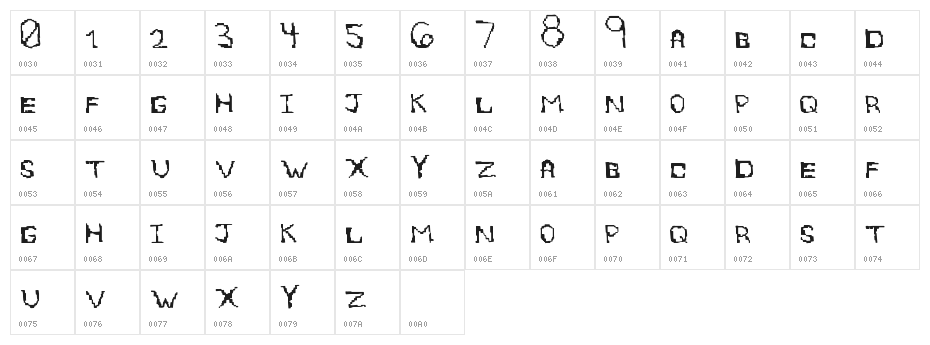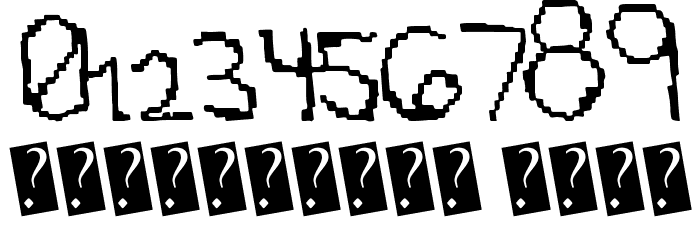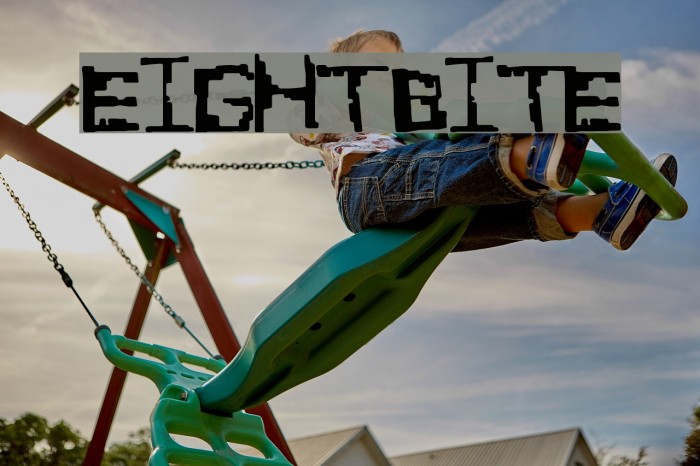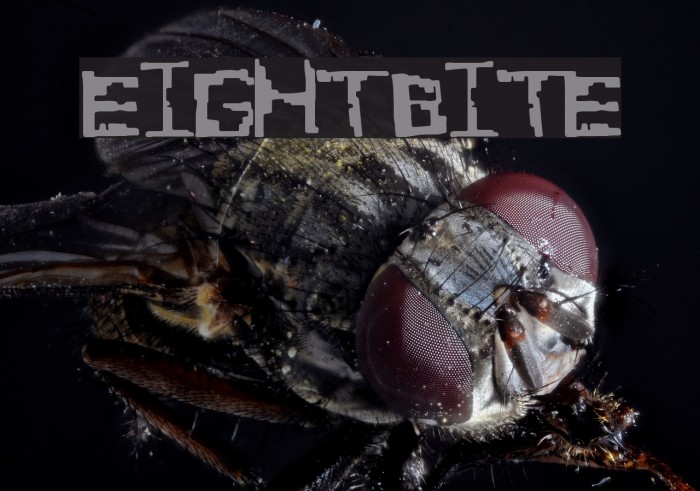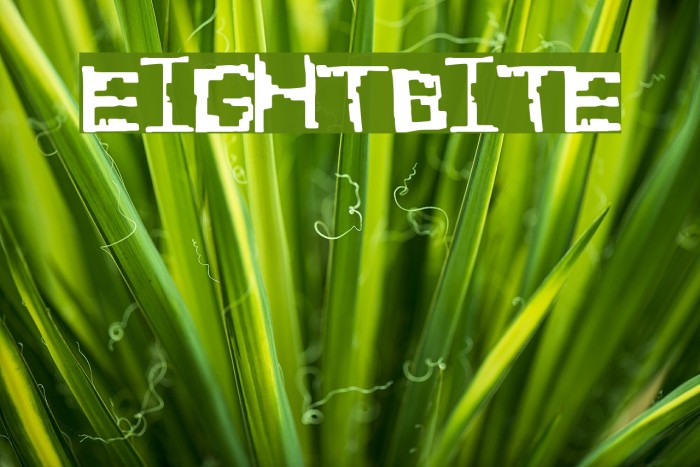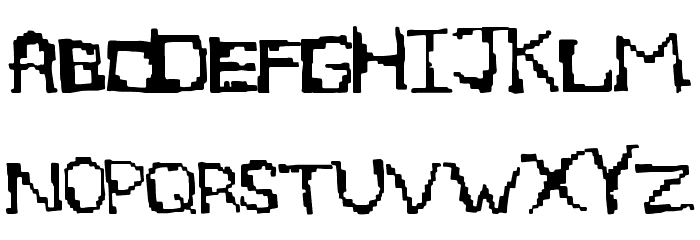
EightBite Font
EightBite Description
This font features a pixelated, blocky design reminiscent of early digital or video game aesthetics. The characters are constructed with a rough, jagged edge, giving them a retro, 8-bit appearance. The uppercase and lowercase letters share a consistent style, maintaining the pixelated theme throughout. Numbers and special characters are similarly designed, ensuring uniformity across all glyphs. The font's unique style evokes nostalgia for classic arcade games and early computer graphics, making it ideal for projects that aim to capture a vintage digital feel.
EIGHTBITE UPPERCASE
EIGHTBITE LOWERCASE
EIGHTBITE OTHER CHARS
| Proposed Projects | Ideal for video game design, retro-themed posters, digital art projects, and any creative work that seeks to evoke a sense of nostalgia for early computing and gaming. |